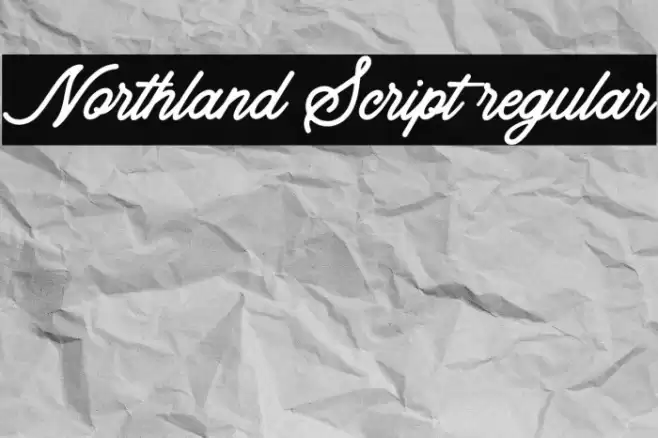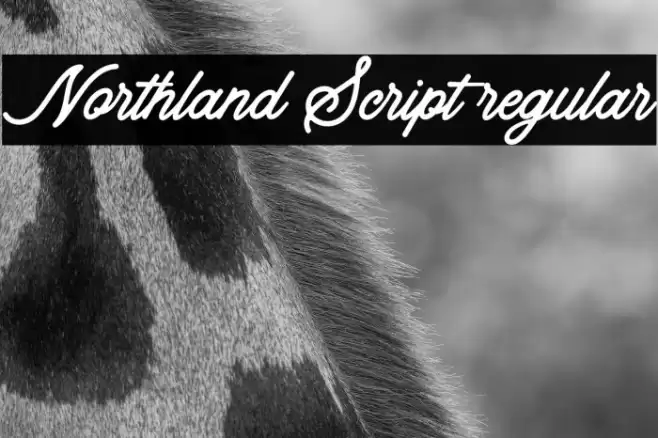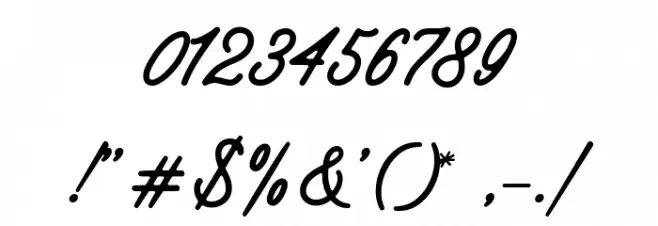
Northland Script regular Font
Northland Script regular Description
This font exudes a classic and elegant script style, characterized by its flowing, cursive letterforms. The uppercase letters are gracefully interconnected, creating a seamless and sophisticated appearance. The lowercase letters maintain a consistent flow, enhancing readability while retaining the decorative nature of the script. Numbers and special characters are designed to match the overall aesthetic, with smooth curves and balanced proportions. This font is ideal for projects that require a touch of elegance and formality, such as wedding invitations, greeting cards, and branding materials.
A classic and elegant script font with flowing, cursive letterforms from Regular fonts.
- Proposed Projects: Ideal for wedding invitations, greeting cards, and elegant branding materials.
- Overall Style: Classic